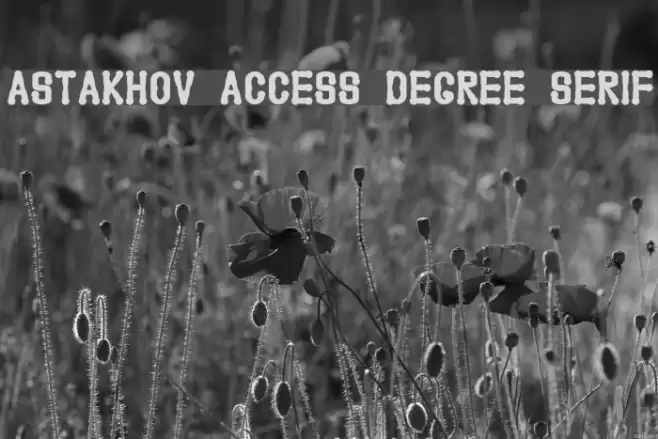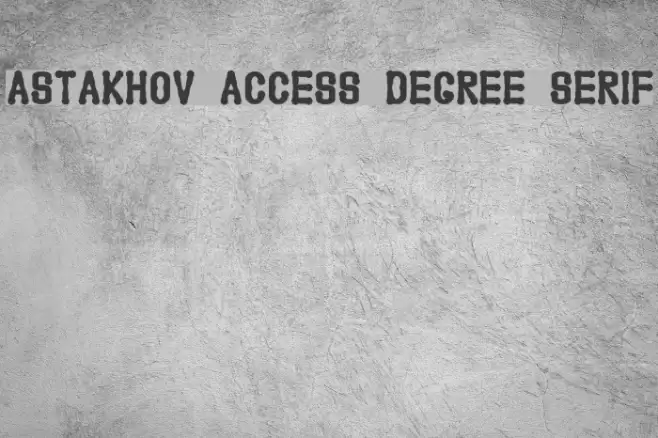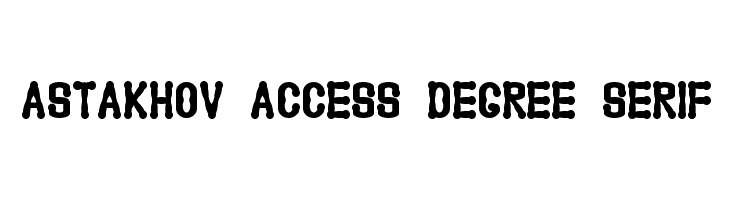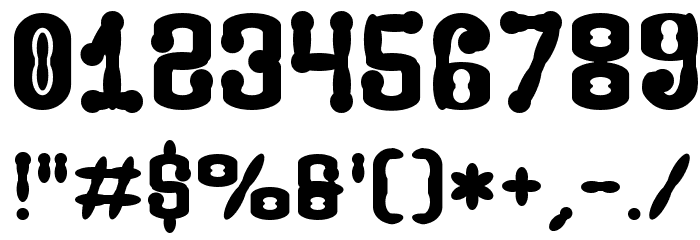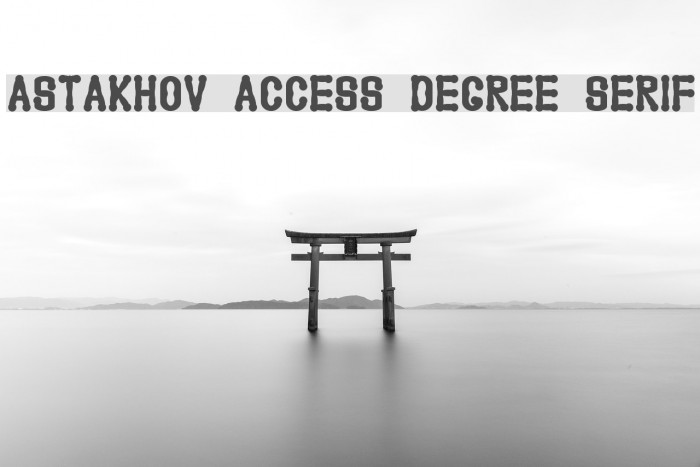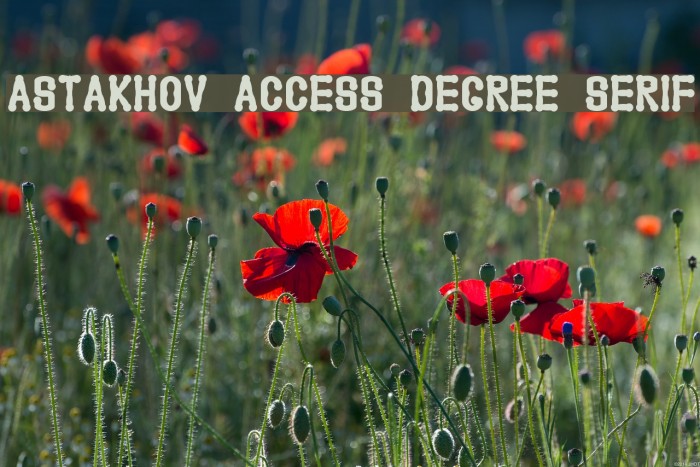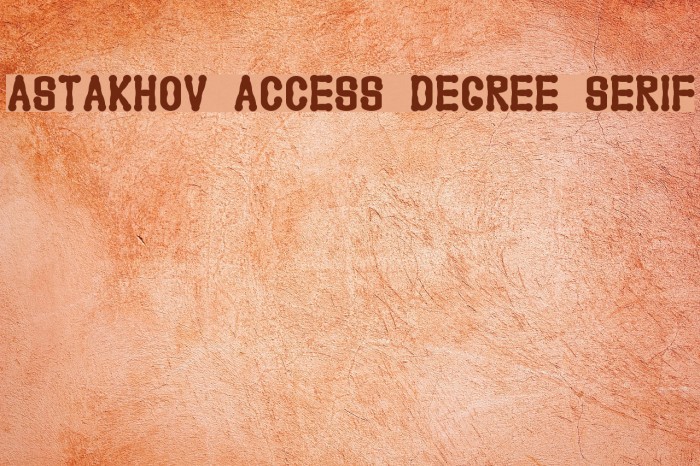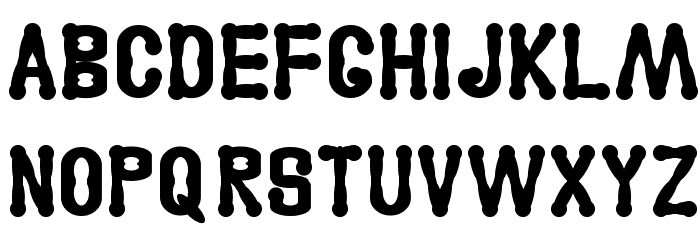
Astakhov Access Degree Serif Font
Astakhov Access Degree Serif Description
This font features a bold and playful design with rounded edges and a slightly irregular shape, giving it a unique and eye-catching appearance. The characters are thick and robust, with a whimsical touch that adds personality. The uppercase and lowercase letters maintain a consistent style, while the numbers and special characters complement the overall aesthetic. This font is ideal for projects that require a fun and engaging look, such as children's books, posters, or branding for creative businesses.
A bold, playful font with rounded edges and a whimsical style from Uncategorized fonts.
- Proposed Projects: Ideal for children's books, posters, branding for creative businesses, and playful designs.
- Overall Style: Playful, Whimsical